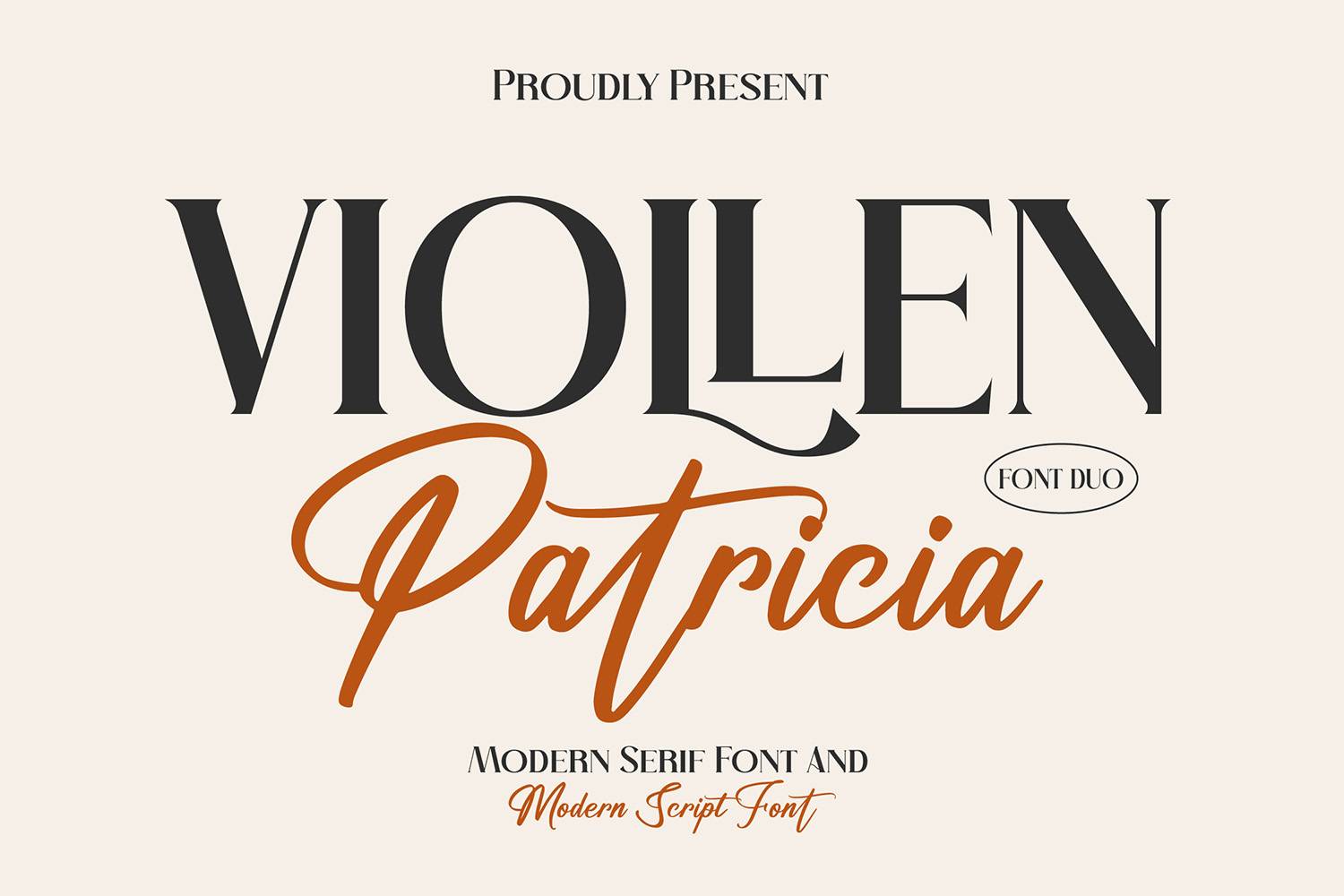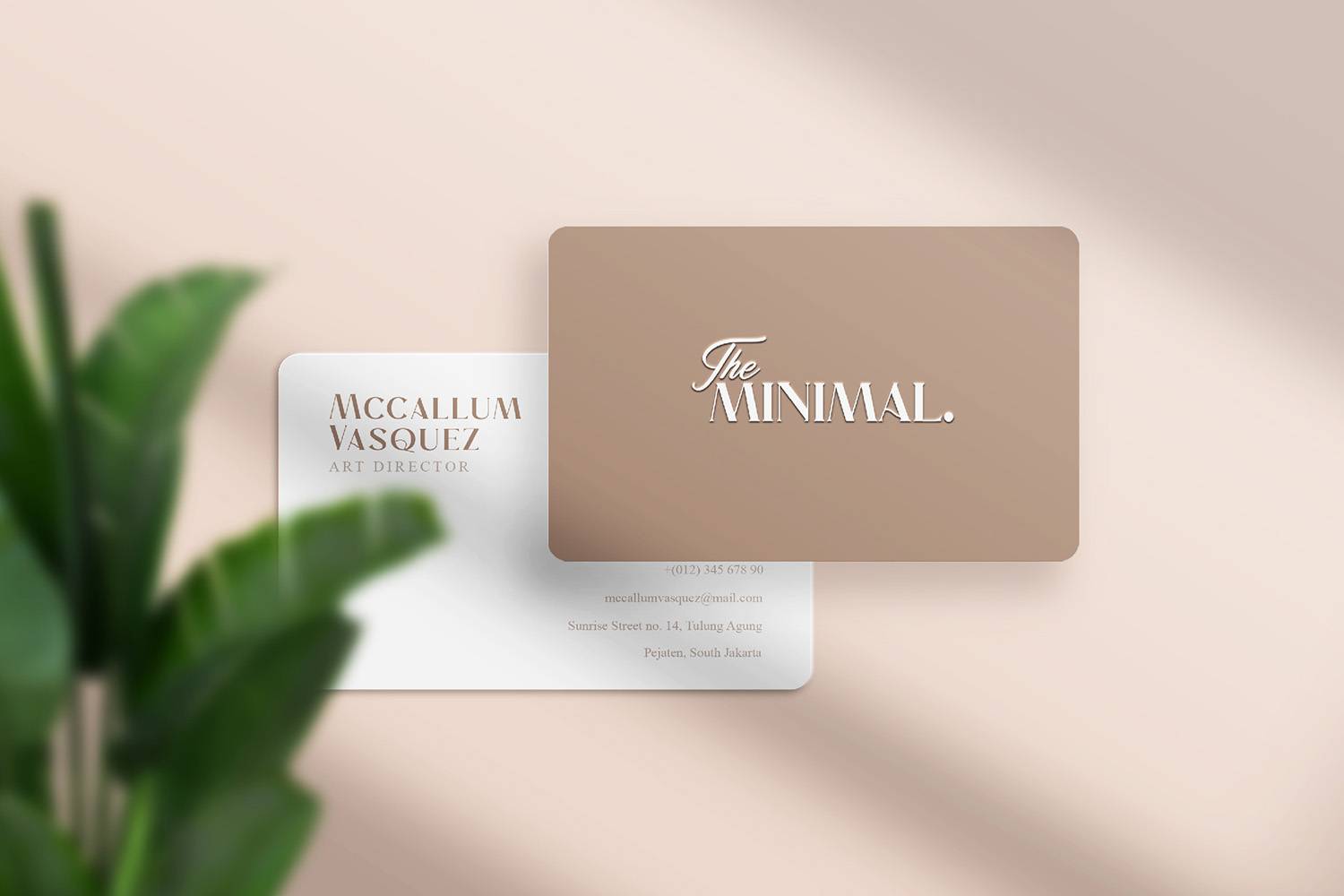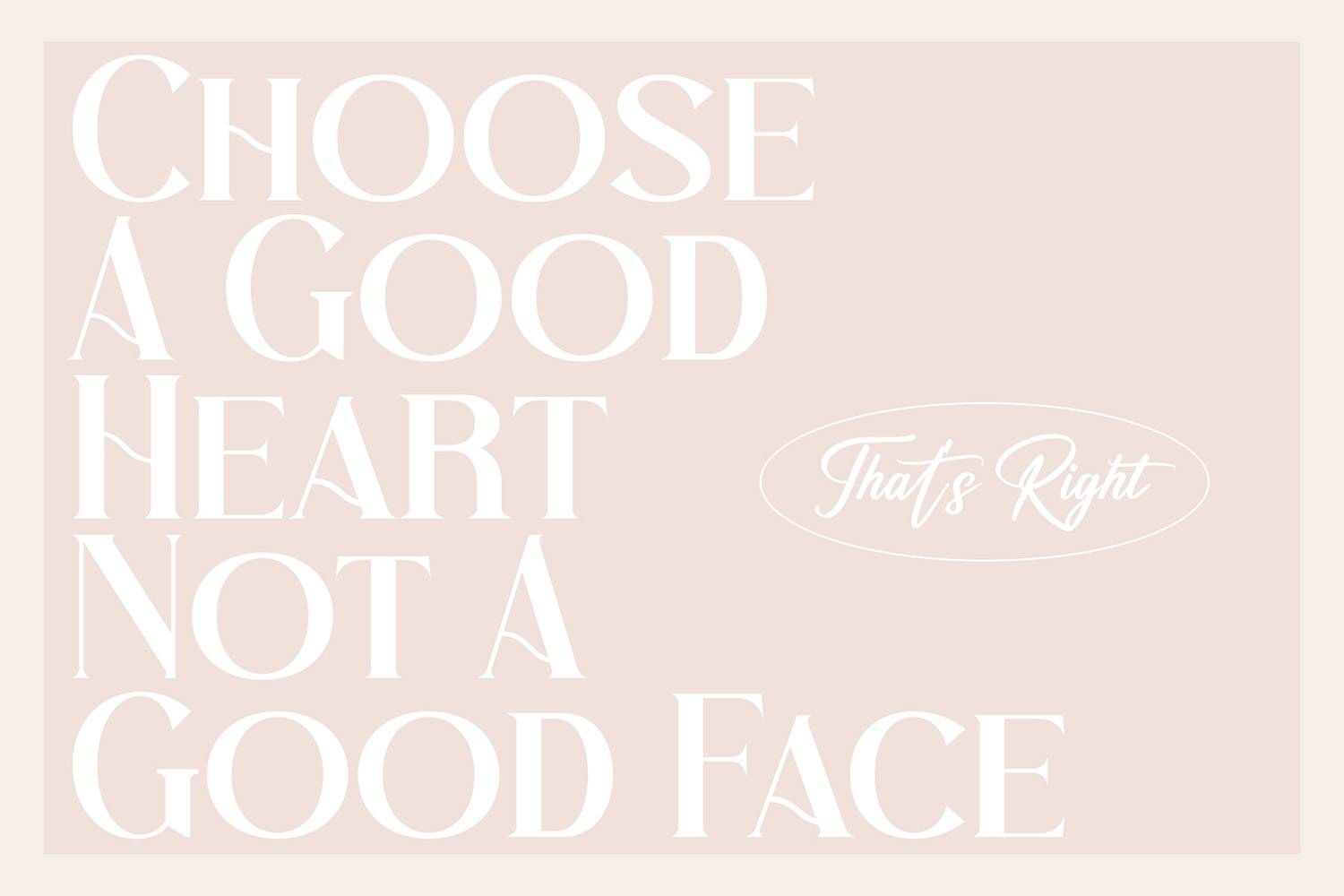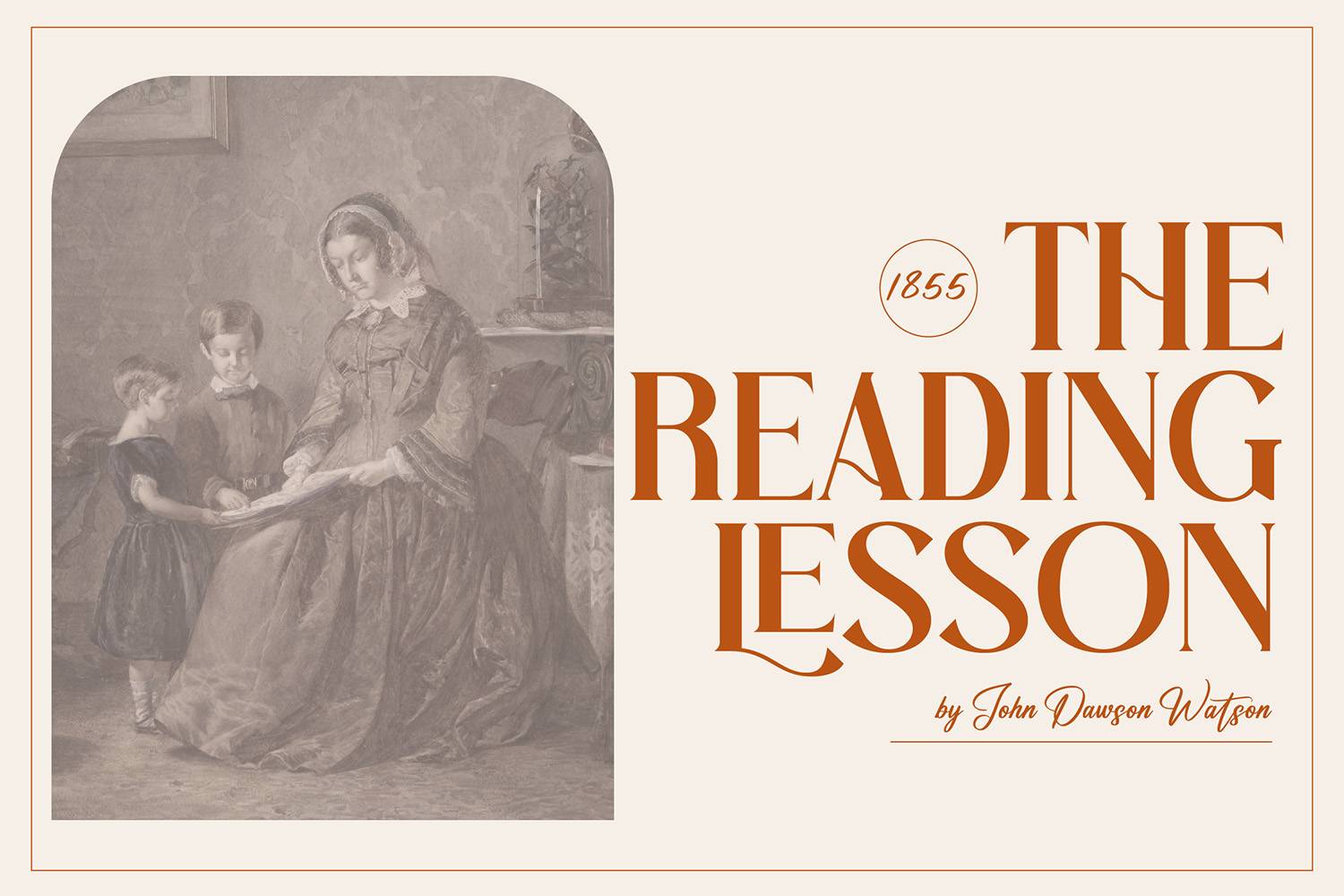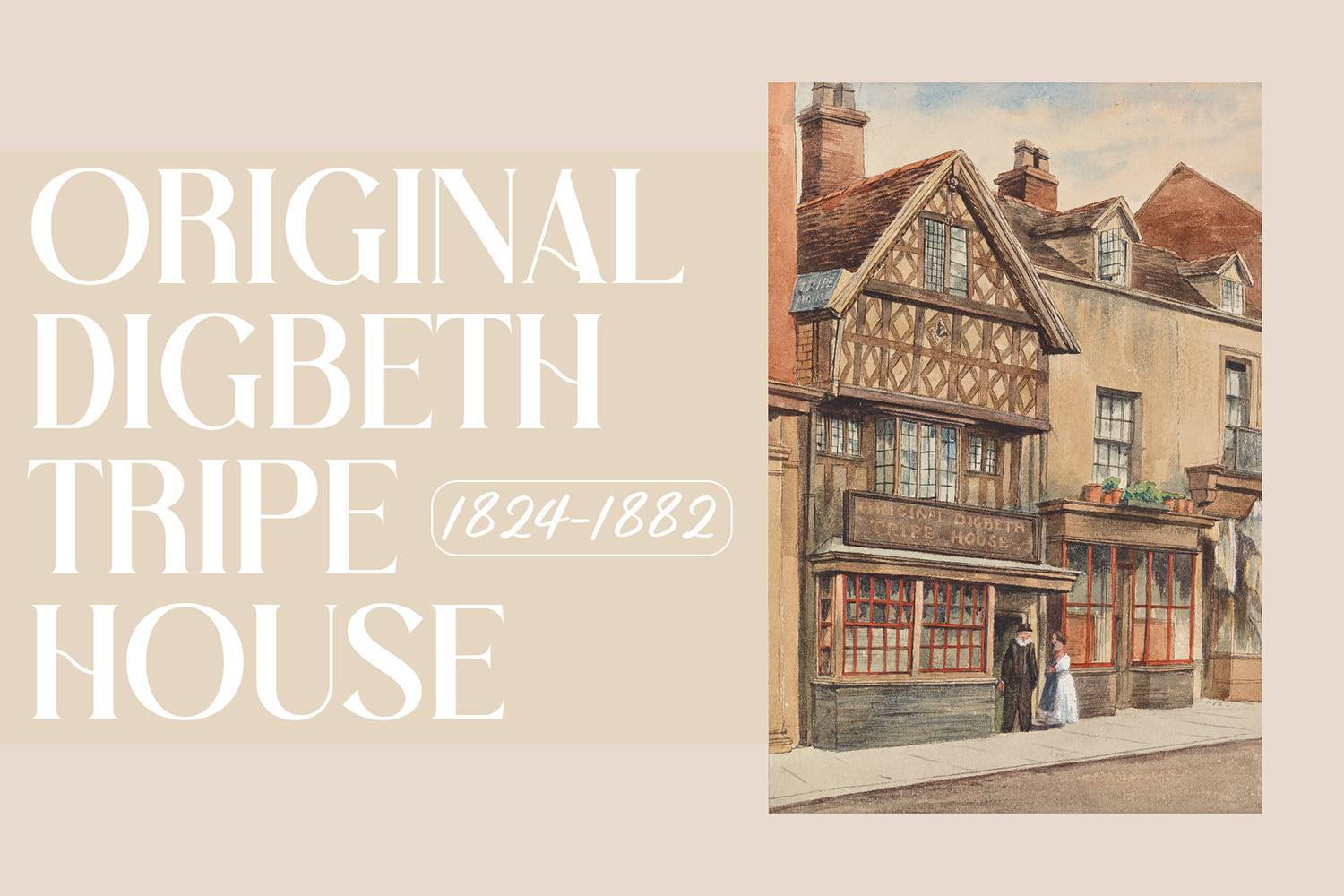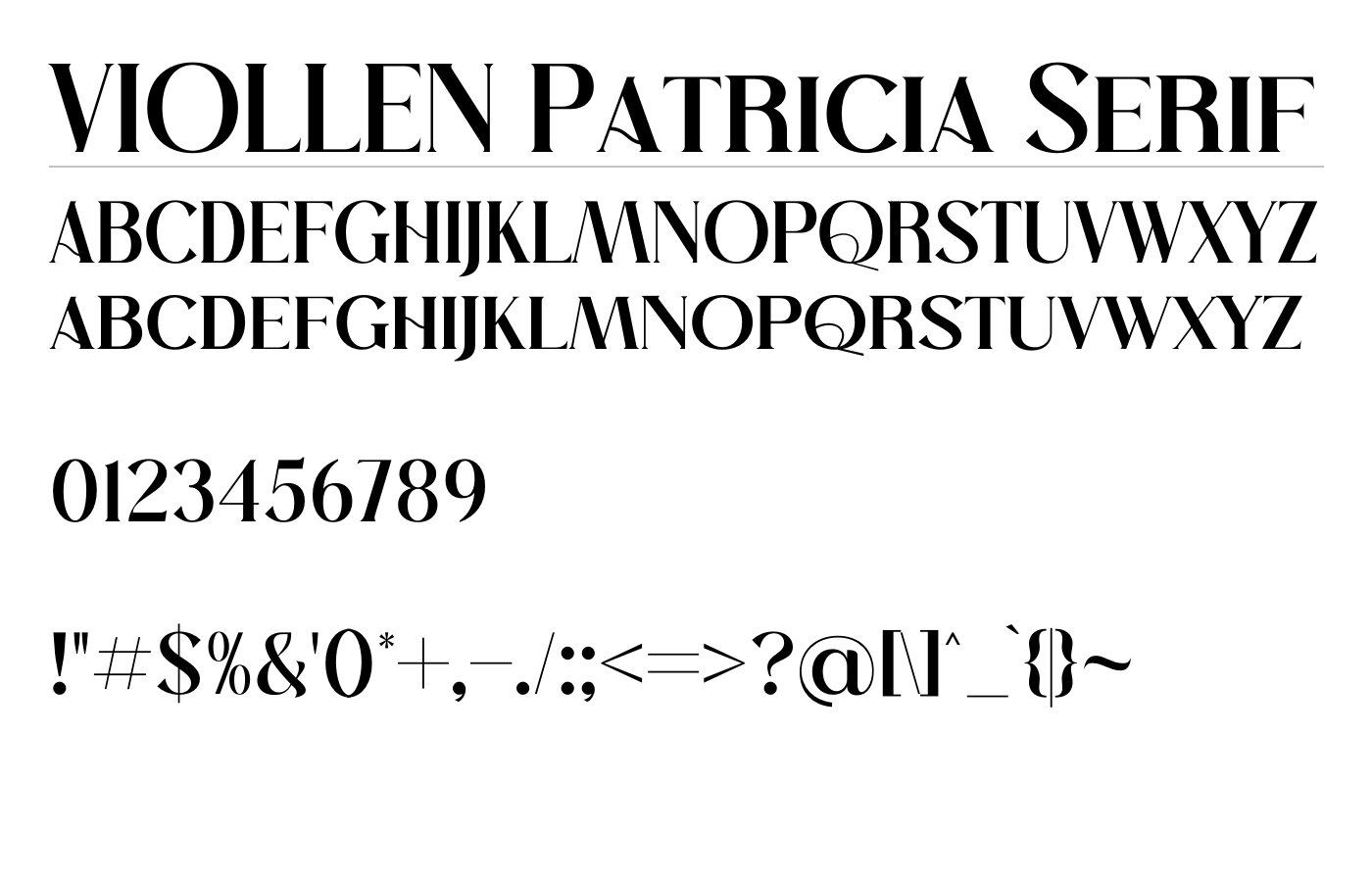
Viollen Patricia is an elegant serif font characterized by its sharp, high-contrast strokes and refined, narrow letterforms that convey a sophisticated and classic style. Its distinctive details, such as the flowing tail of the Q and the unique shapes of letters like A and R, give it a luxurious and artistic personality, ideal for upscale branding, editorial headlines, and fashion-focused designs. This font works beautifully where a stylish and formal impression is desired, adding a touch of grace and exclusivity to any visual project.
Viollen Patricia Font